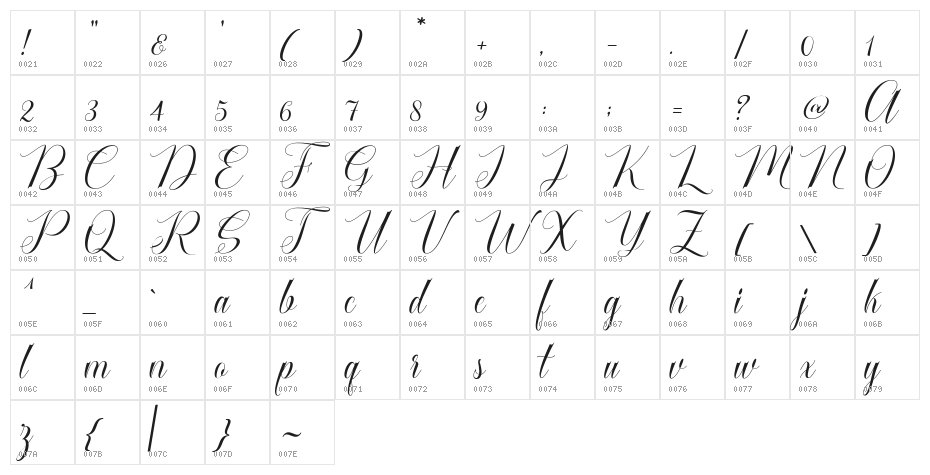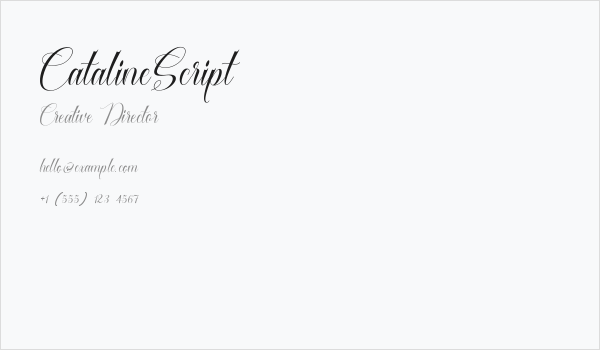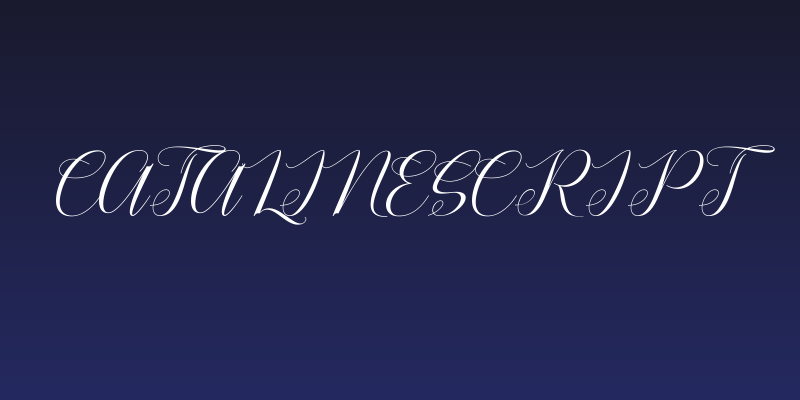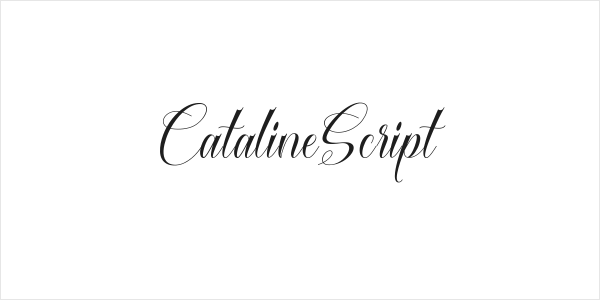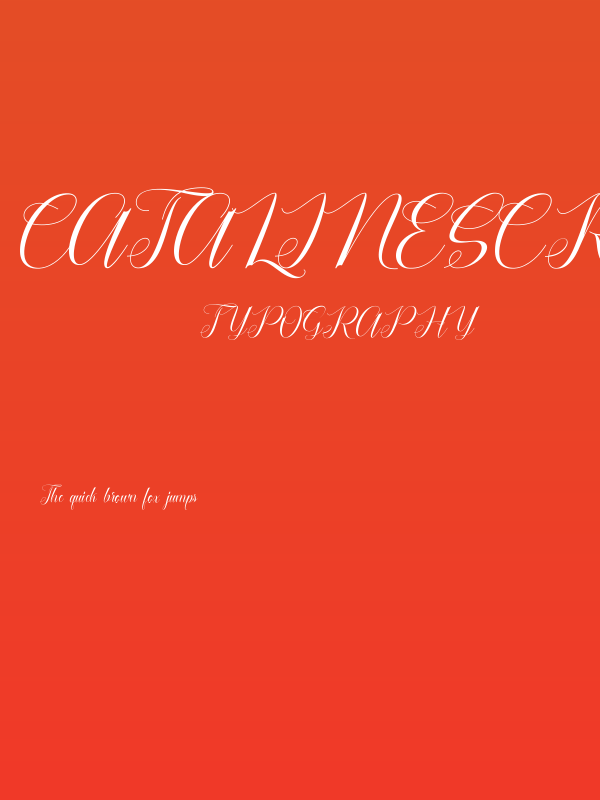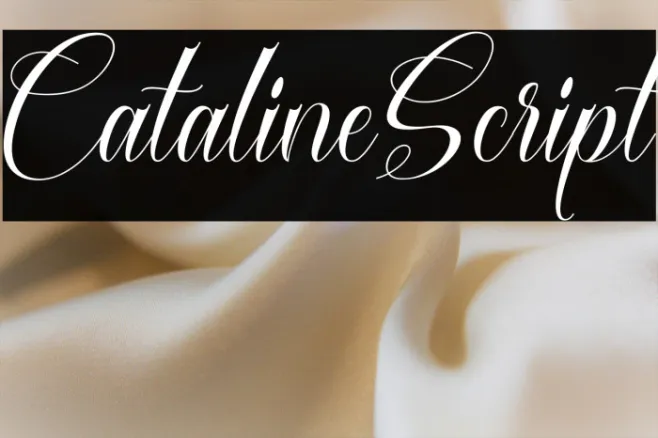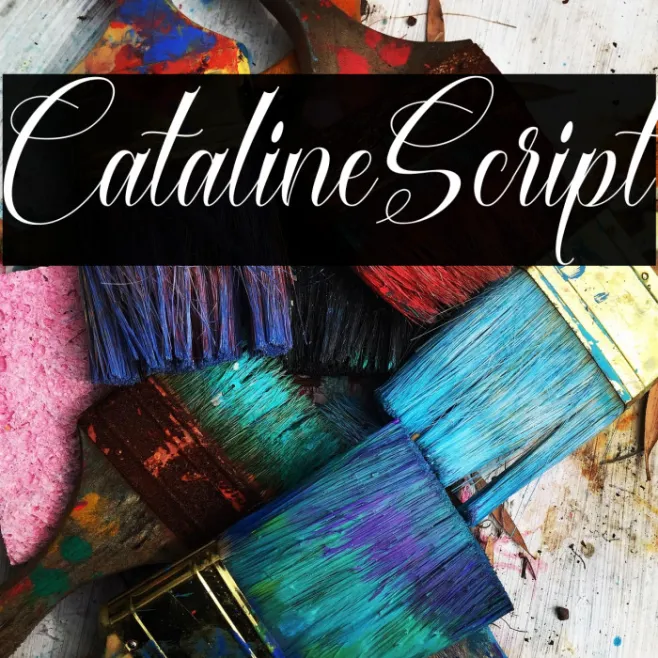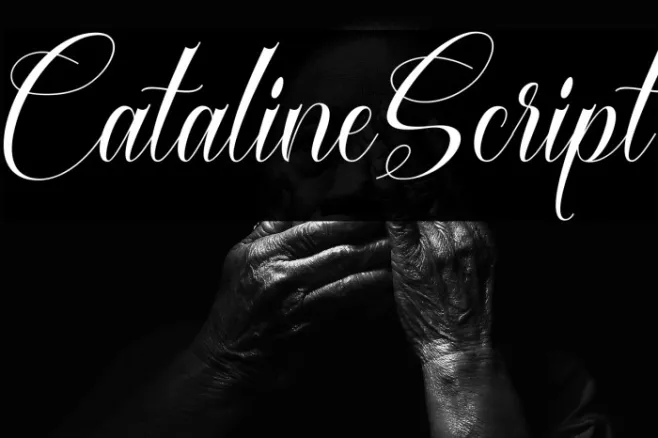
CatalineScript Font
CatalineScript Description
This elegant script font features a flowing, cursive style with high contrast between thick and thin strokes. The uppercase letters are ornate, with sweeping curves and flourishes that give a sense of sophistication and grace. The lowercase letters maintain a consistent slant, enhancing the fluidity and continuity of the text. Numbers and special characters are designed with the same attention to detail, ensuring a cohesive look across all elements. The font's overall appearance is both classic and decorative, making it suitable for formal invitations, branding, and other projects that require a touch of elegance.
| Overall Style | Classic, Decorative |
| Use Case | Invitations, Branding, Decorative Text |
| Proposed Projects | Ideal for wedding invitations, luxury branding, greeting cards, and elegant signage. |